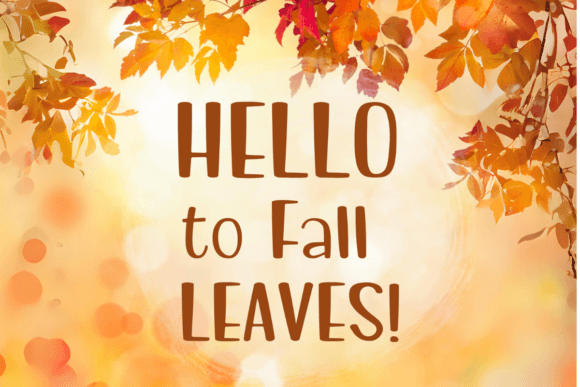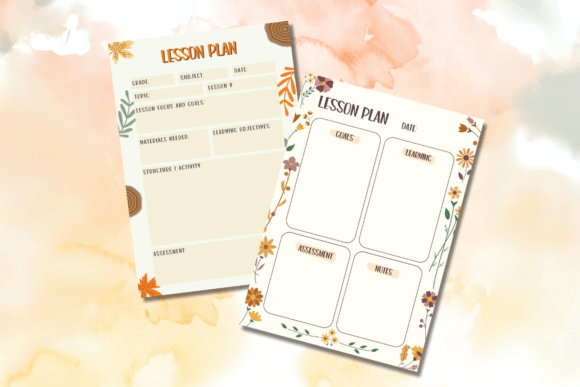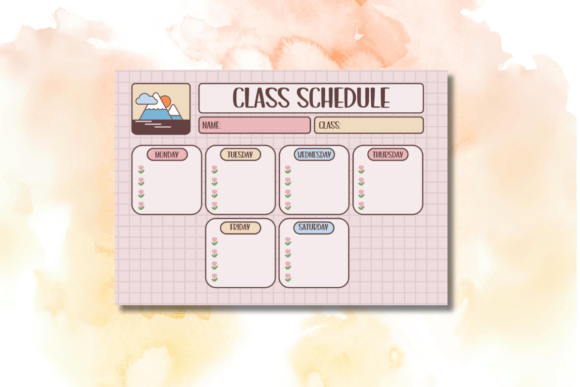
Orange Garden Font: A Cute Handwritten Font for Fall Designs
About the Orange Garden Font
Make a bold statement with Orange Garden Font, a powerful and memorable font. Orange Garden Font is a cute and casual handwritten in playful sans-serif font style.It is charming, whimsical, and a bit quirky. It would be an amazing addition to your fun projects and designs.Perfect for digital planners, digital notes, journals, note-taking fonts, logos, holiday cards, wedding invitations, quotes, advertisements, and more.
Orange Garden’s playful energy makes it ideal for headlines, short text blocks on posters, branding elements for youthful brands (e.g., cafes, boutiques), and social media graphics. It also works well for packaging design where a friendly, approachable feel is desired. However, its informal nature makes it unsuitable for large blocks of body text or UI elements requiring high readability. Avoid using it for lengthy paragraphs or situations demanding maximum legibility.
Pairing Orange Garden with a clean sans-serif like Montserrat for body text or a classic serif like Garamond for supporting text creates a visually balanced and harmonious design. Alternatively, a geometric sans-serif such as Futura adds a touch of modern sophistication, tempering the font’s whimsicality. For a more playful approach, consider pairing it with a script font such as Allura, although careful consideration of kerning and spacing would be necessary.
The font’s overall personality is best described as cheerful and approachable, conveying a sense of fun and lightheartedness. It is best suited for brands and projects that wish to project a friendly, youthful, and slightly quirky image.
Orange Garden Font Usage Examples
Orange Garden Font Example